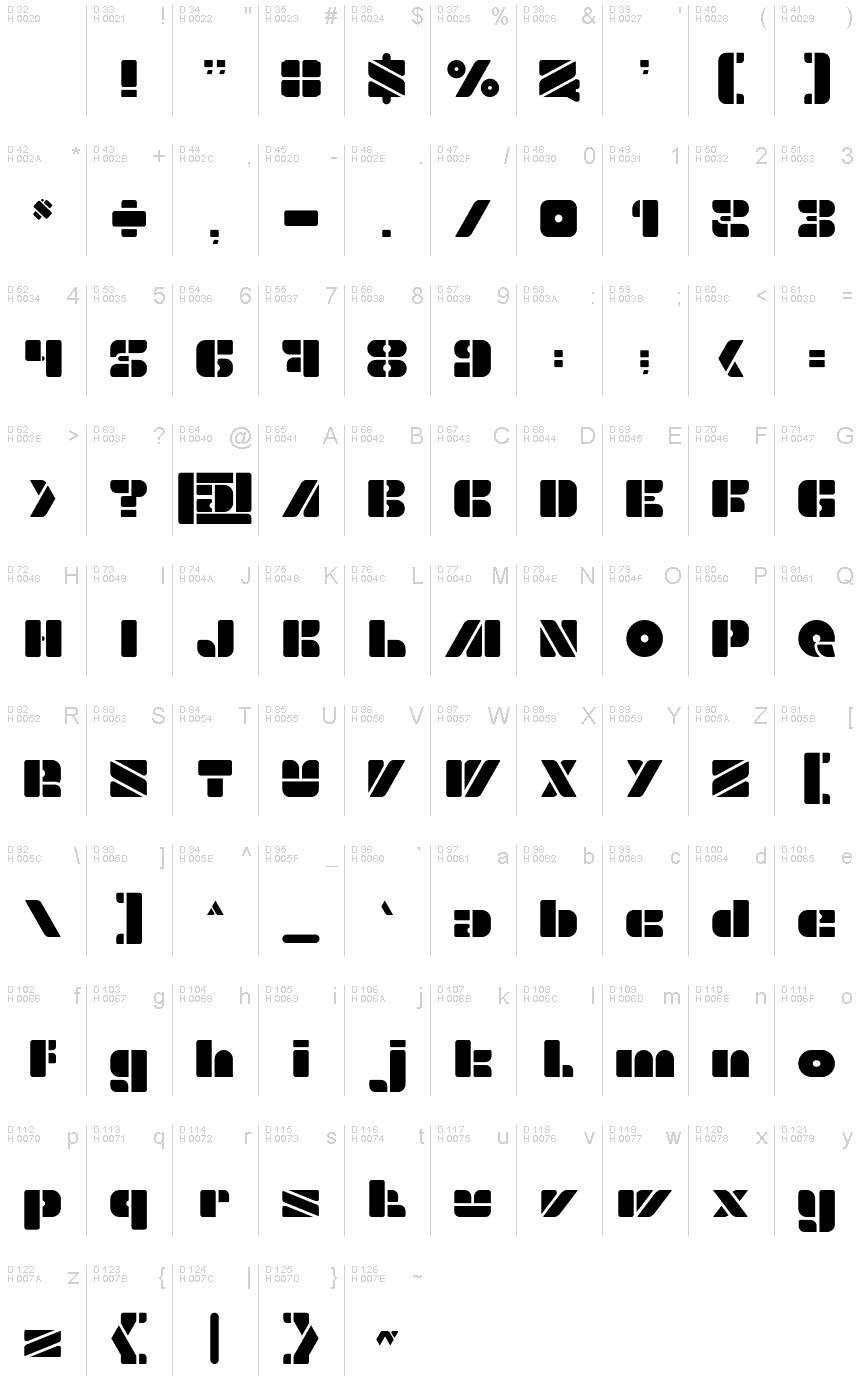
Science Channel by Weknow is a free techno display font with broad, futuristic letterforms and severe geometric cutouts. Rounded bodies meet long vertical strokes, narrow slots, and sharp diagonal breaks, giving the alphabet a machine-tooled silhouette.
Science and broadcast themes make it a natural fit for television graphics and exhibition posters, where the unusual internal gaps can echo circuitry or technical diagrams. It also suits game interfaces and electronic music packaging.